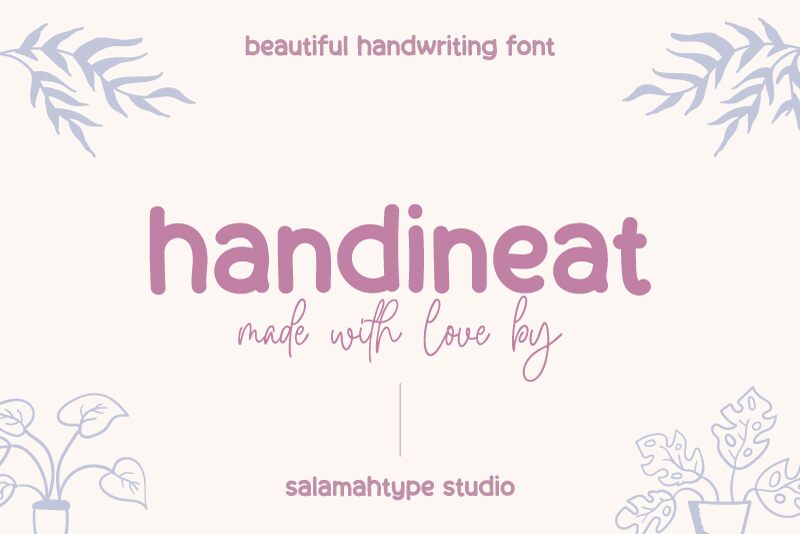
Handineat
Handineat is a captivating handwritten font that exudes a distinct personality. With its bold, expressive strokes and fluid, organic lines, this font immediately commands attention.
The uneven, hand-crafted appearance lends an authentic, personal touch, making it an ideal choice for projects seeking a genuine, heartfelt aesthetic. Whether used for headlines, branding, or editorial design, Handineat's versatility shines through, effortlessly infusing a sense of warmth and individuality into any layout. Its unique character makes it well-suited for a variety of applications, from packaging and advertising to stationery and event invitations.
Embrace the charm and character of Handineat, and elevate your designs with a touch of genuine, handcrafted flair.